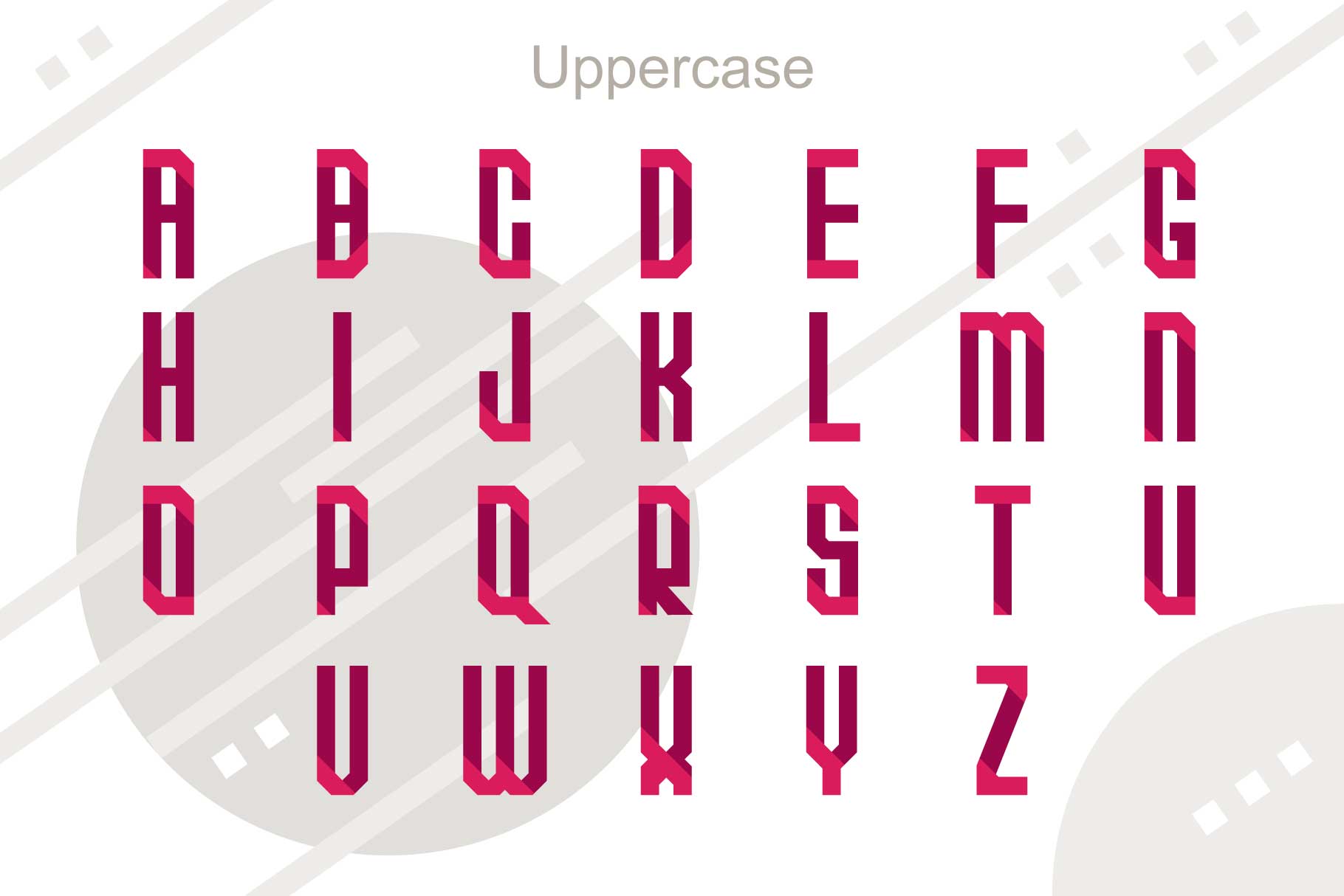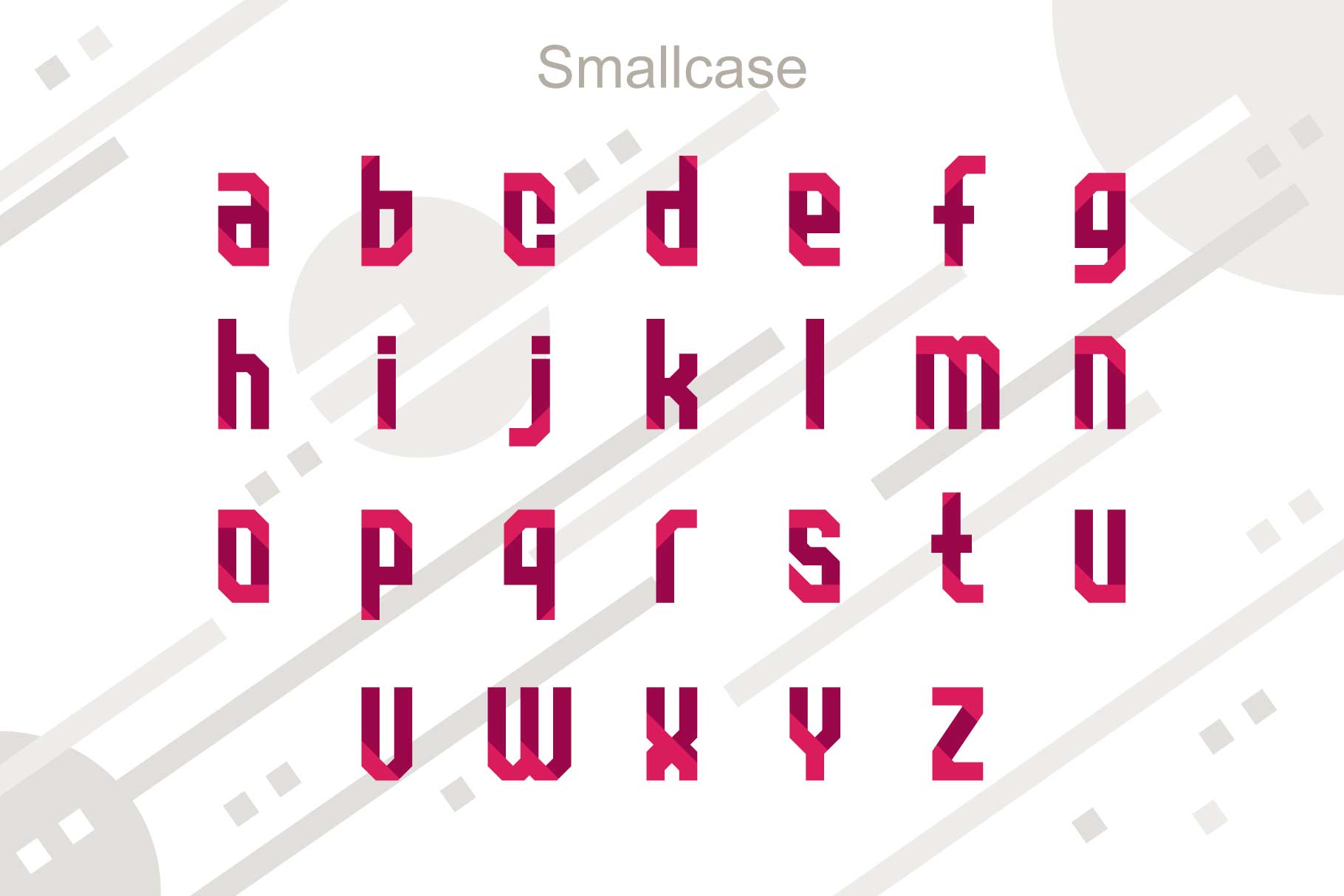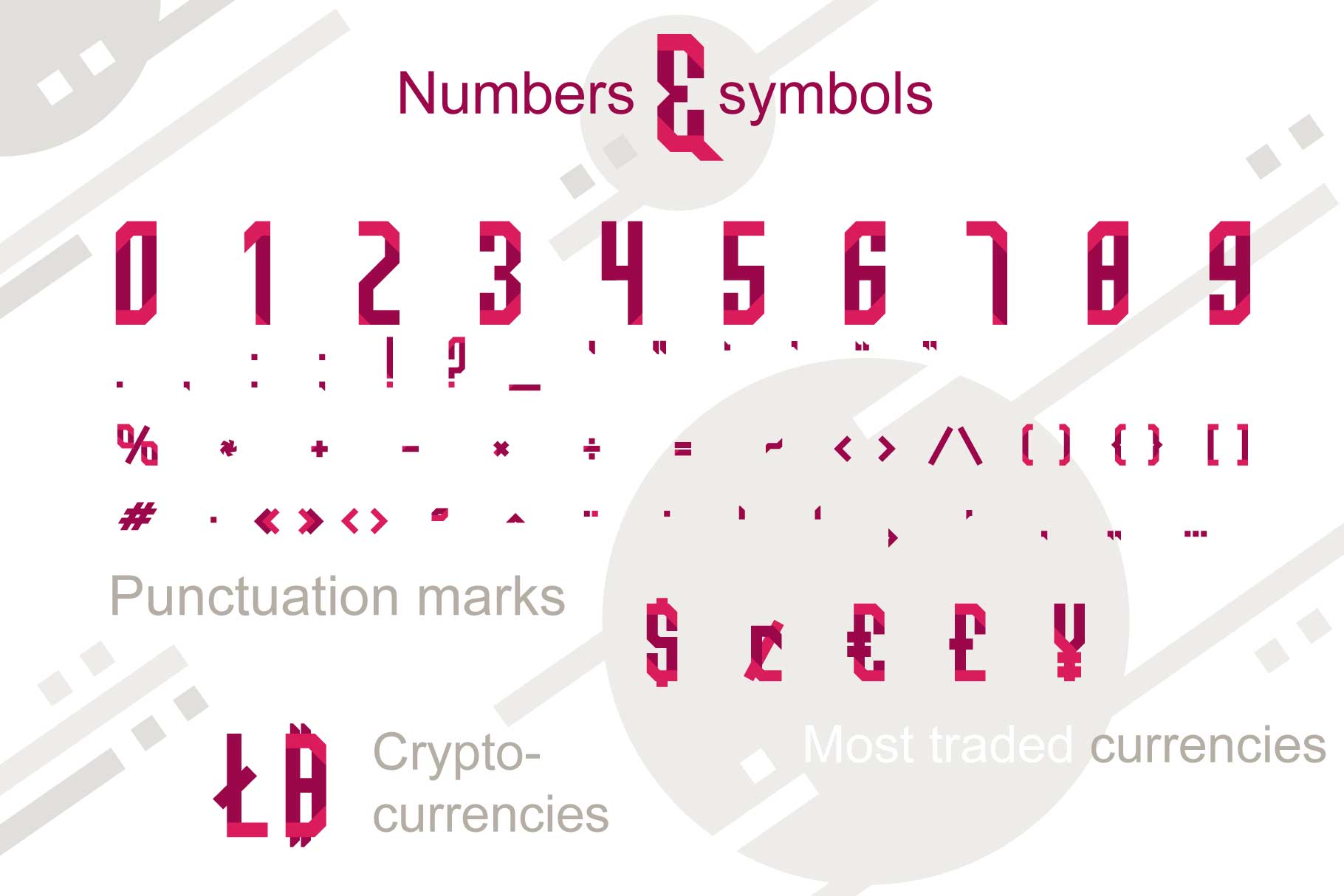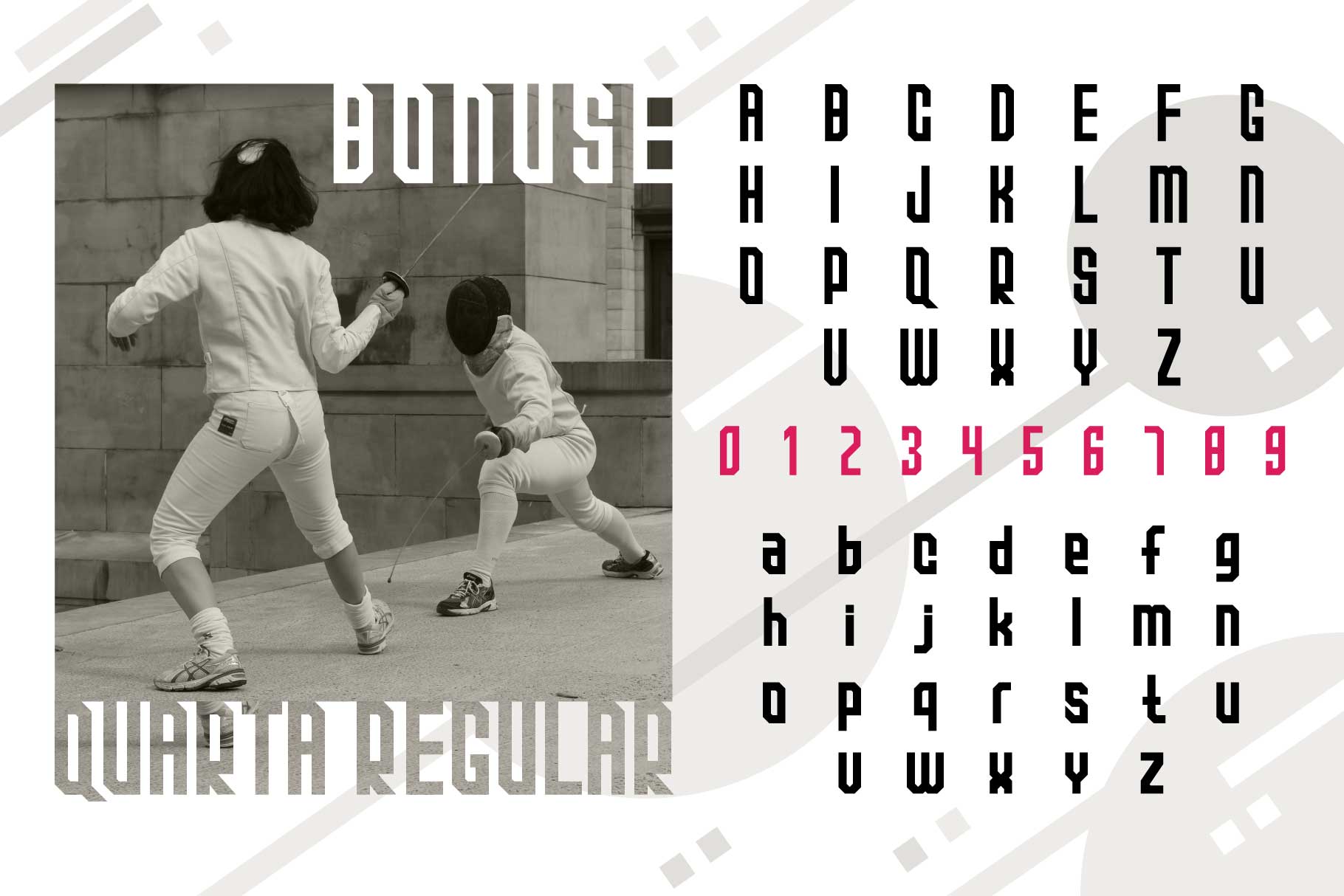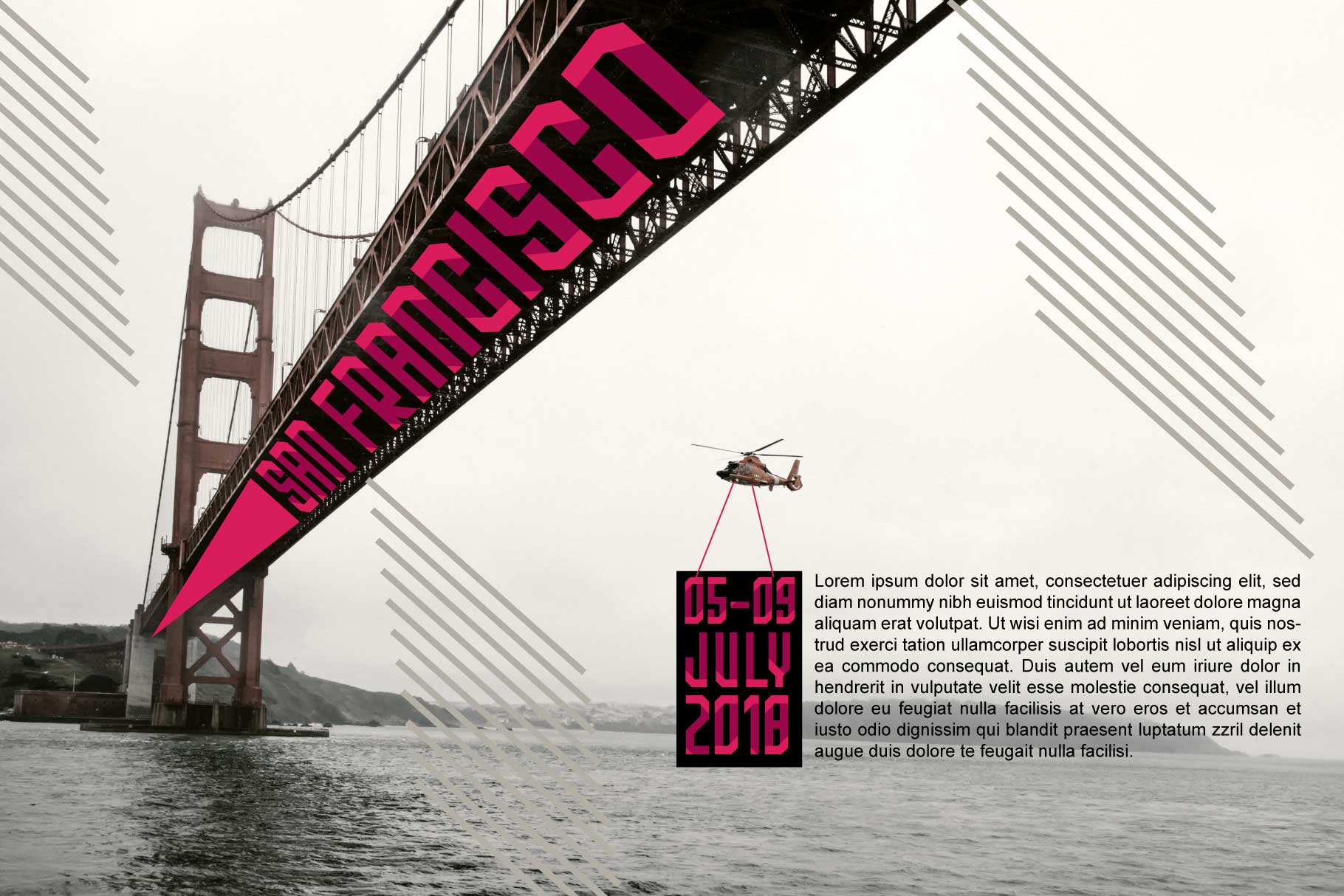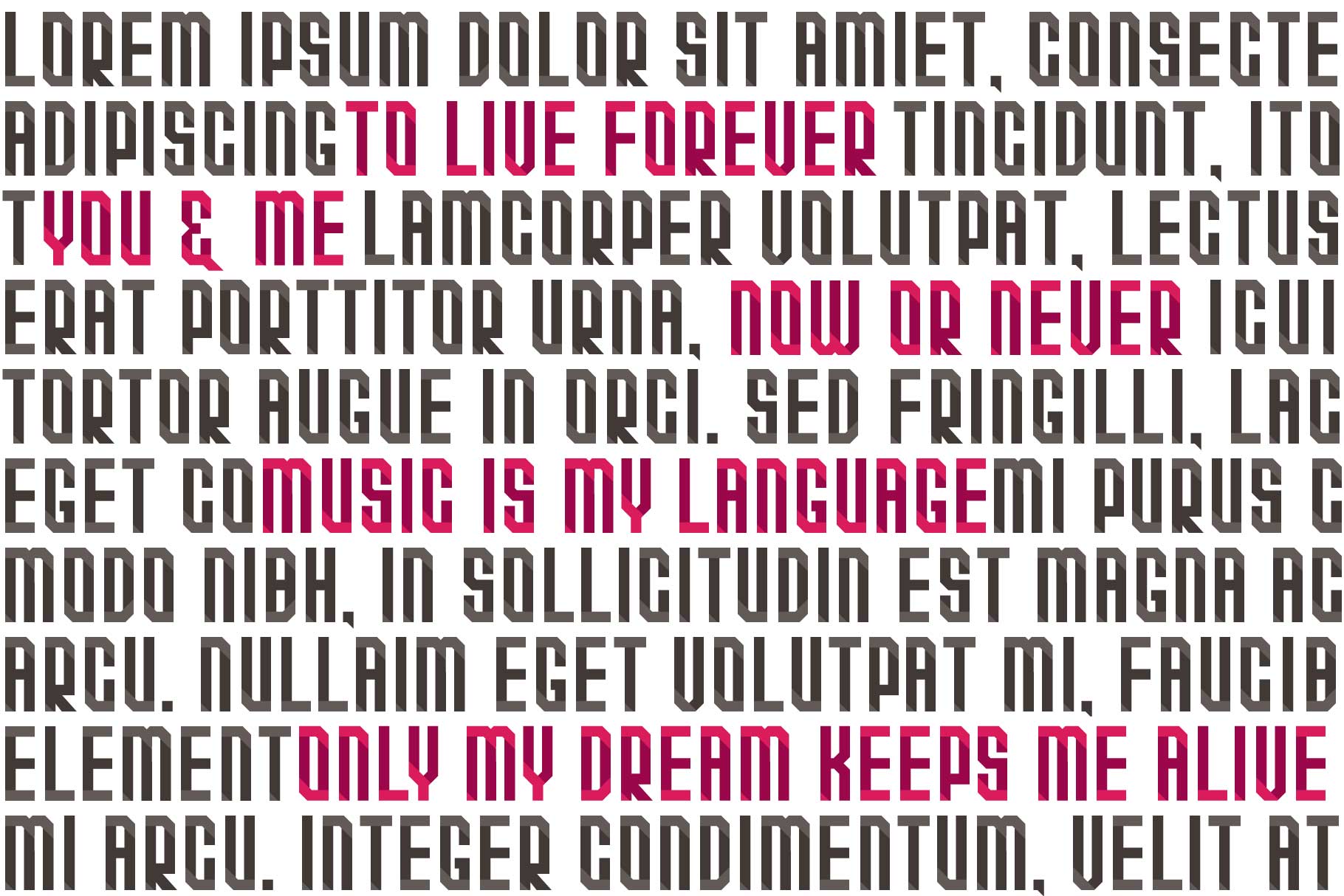
Introduction to Quarta Font
Have you ever been stuck on a creative project, struggling to find the perfect font to elevate your design? The search can be daunting, especially when you’re looking for something that truly stands out. That’s where Quarta Font comes in – a stunning modern display sans serif font that’s sure to give your designs a sleek, high-quality look.
Quarta Font is more than just a pretty face, though. It’s a powerful design resource that offers a range of benefits for designers. With its colorful vector alphabet, numerals, and punctuations, you can add an extra layer of sophistication to your work. Plus, with its transparent background, you can easily manipulate the letters to fit your needs. Whether you’re working on a branding project or a graphic design assignment, Quarta Font is a valuable asset to have in your toolkit.
Key Features of Quarta Font
- High-quality, professional design for various creative projects, including graphic design, digital art, and more.
- Comes with a transparent background, allowing for seamless integration into any design.
- Designed at a high resolution (300 DPI), ensuring crisp and clear results when used in large-scale designs.
- Unique characteristics include a modern, elegant aesthetic and a wide range of font sizes and styles.
- Perfect for use in various design contexts, including logos, headings, and body text.
As a designer, I’m always on the lookout for high-quality design resources to enhance my creative projects. Recently, I had the chance to work with Quarta Font, and I’m excited to share my honest review.
What works well: ✨ Quarta Font offers a stunning, elegant design that’s perfect for various applications. The font is highly customizable, making it easy to adjust the size, color, and style to fit your project’s needs. The transparent background feature is also a game-changer, allowing for seamless integration with other design elements.
Overall impression: Quarta Font is a solid choice for designers looking for a high-quality, elegant font. While it’s not perfect, its strengths far outweigh its weaknesses. With a little patience and flexibility, you can unlock the full potential of this design resource.
Quarta Font is a high-quality design resource that offers a unique and creative touch to any project. With its transparent background, this font is perfect for creating eye-catching graphics and designs.
Quarta Font is perfect for a variety of creative projects, including: Social media graphics, business cards, flyers, and presentations. It’s also great for creating custom typography and logos.